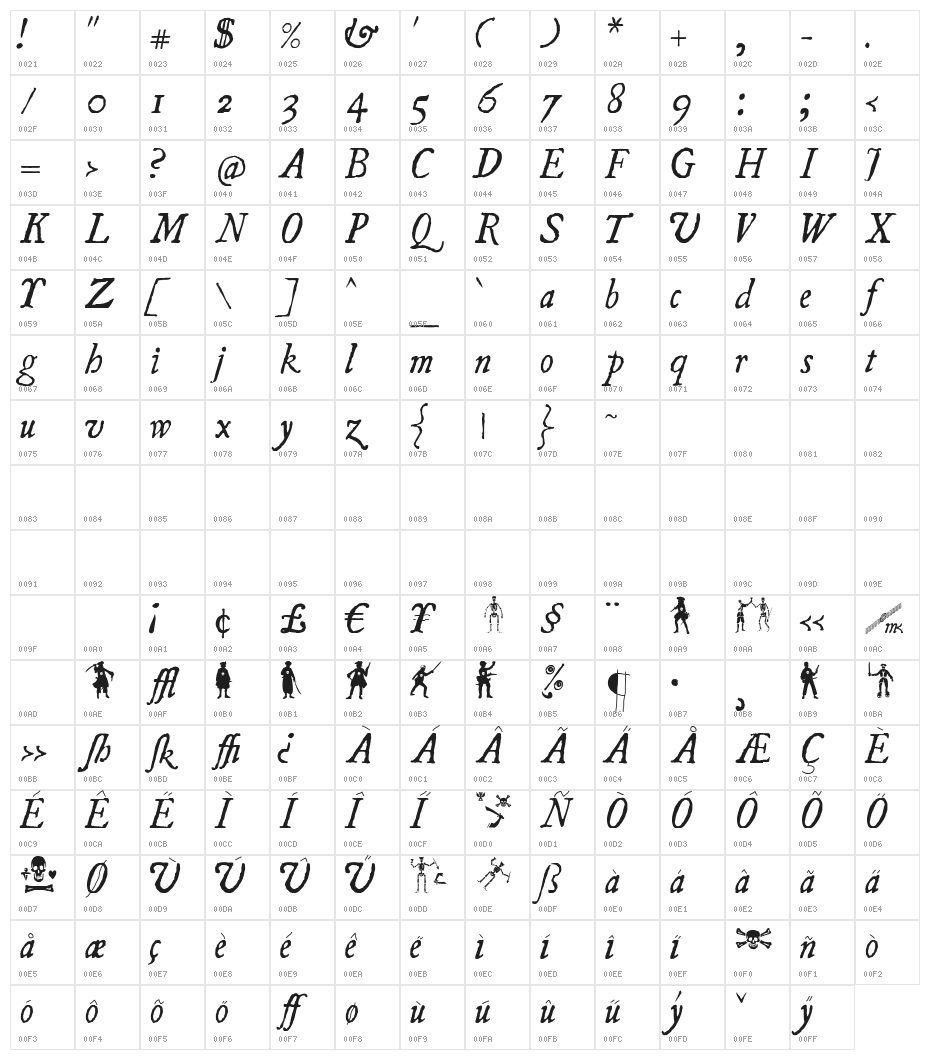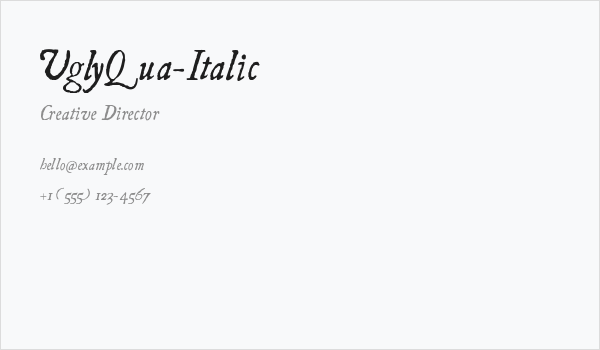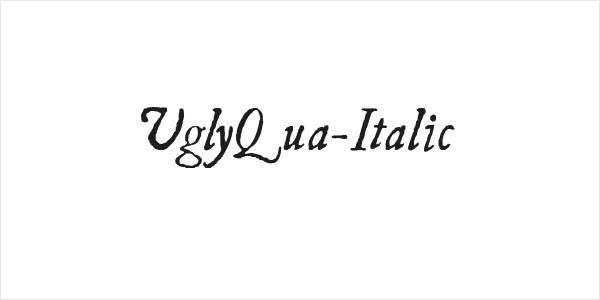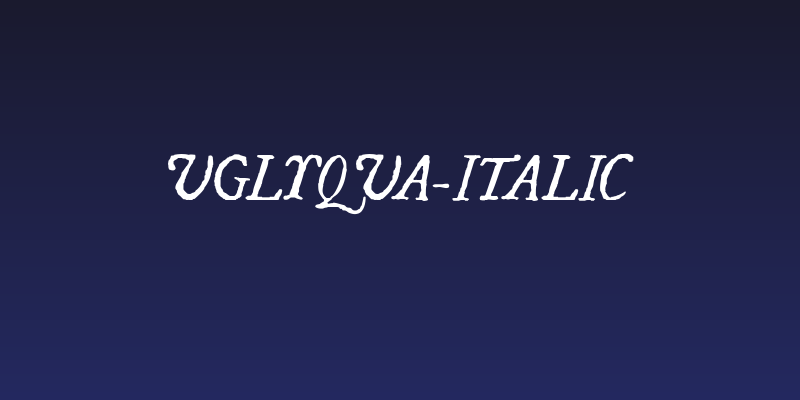
UglyQua-Italic Font
UglyQua-Italic Description
This font features a distinct, hand-drawn style with a slightly irregular and organic appearance. The characters are italicized, giving them a dynamic and fluid motion. The strokes are uneven, adding a rustic and vintage feel. The uppercase letters are bold and prominent, while the lowercase letters maintain a consistent style with unique flourishes, particularly noticeable in letters like 'g' and 'y'. The numerals are bold and follow the same hand-crafted aesthetic, ensuring consistency across the character set. Special characters are creatively designed, maintaining the overall artistic theme.
Overall StyleVintage
Use CaseLogos, Invitations, Greeting Cards
Proposed ProjectsIdeal for projects requiring a personal touch, such as invitations, greeting cards, or branding for artisanal products.